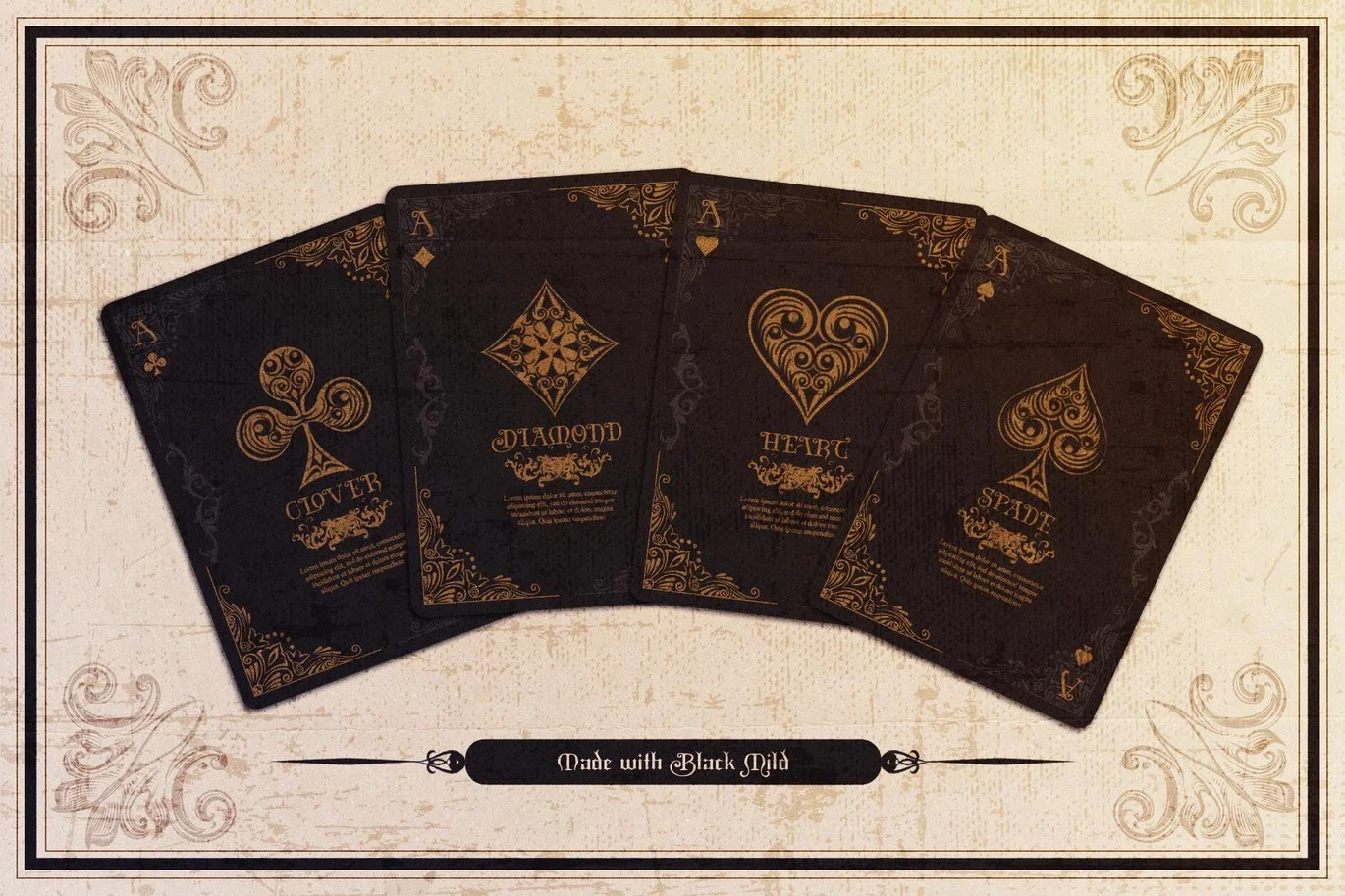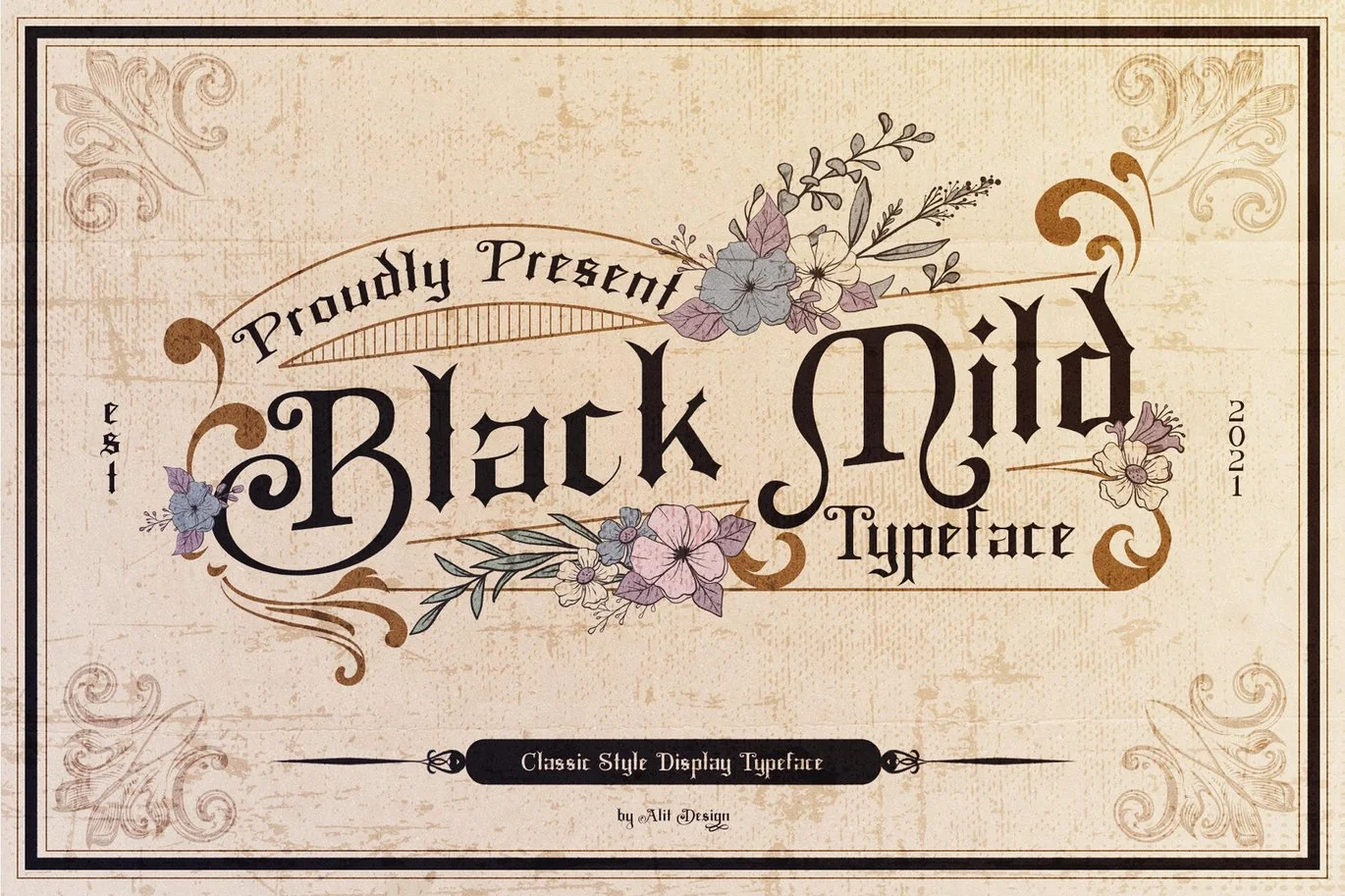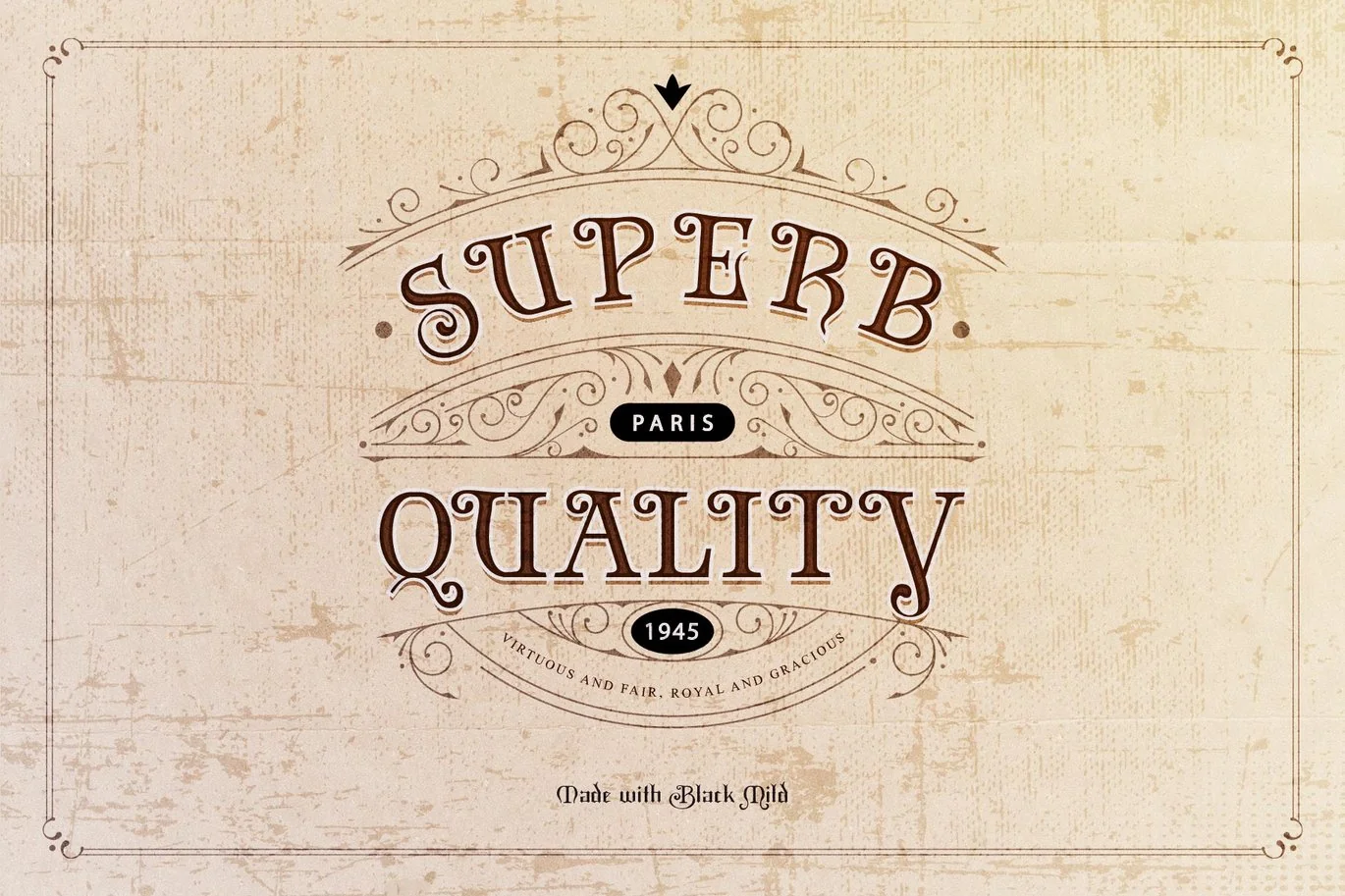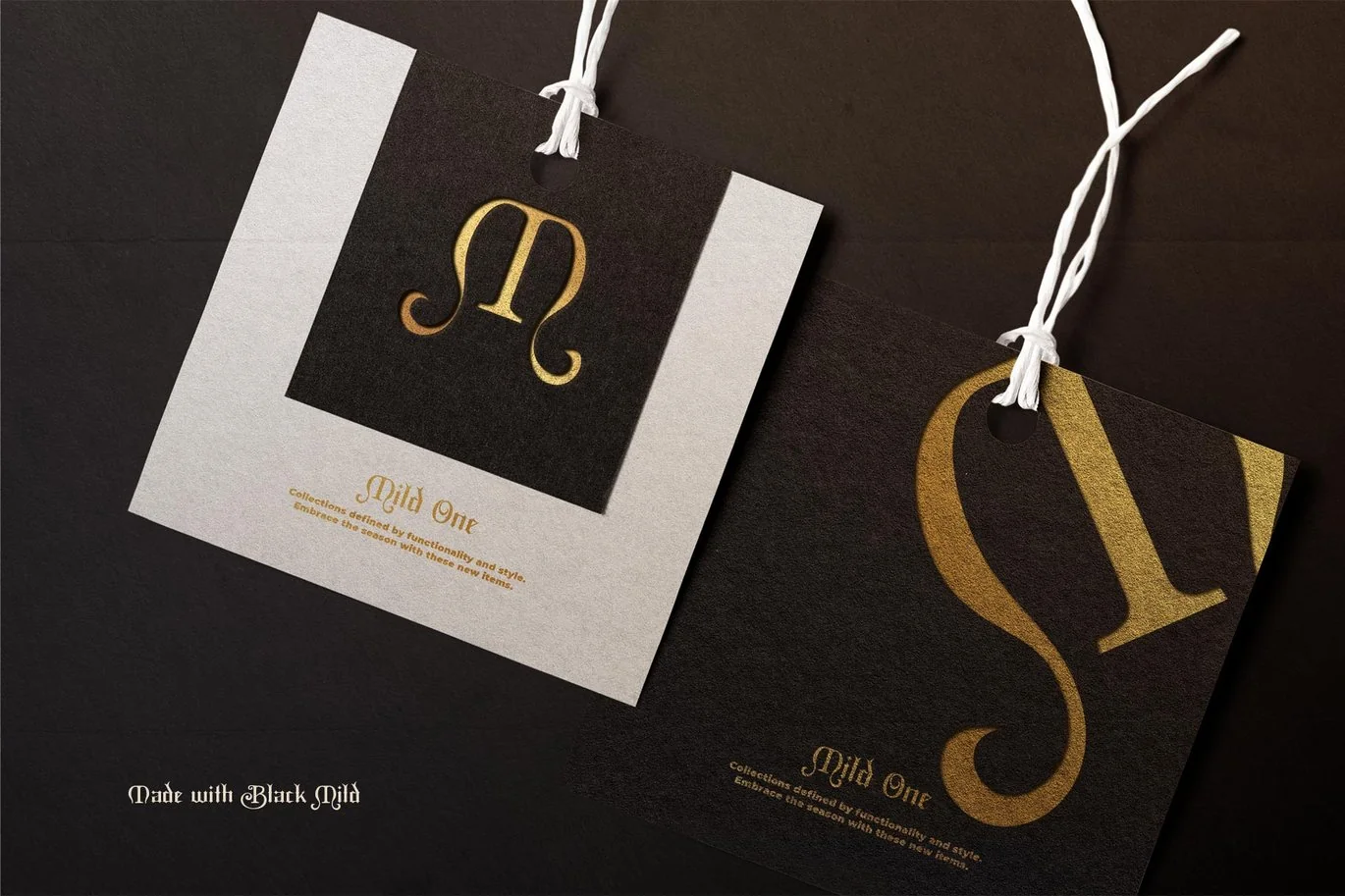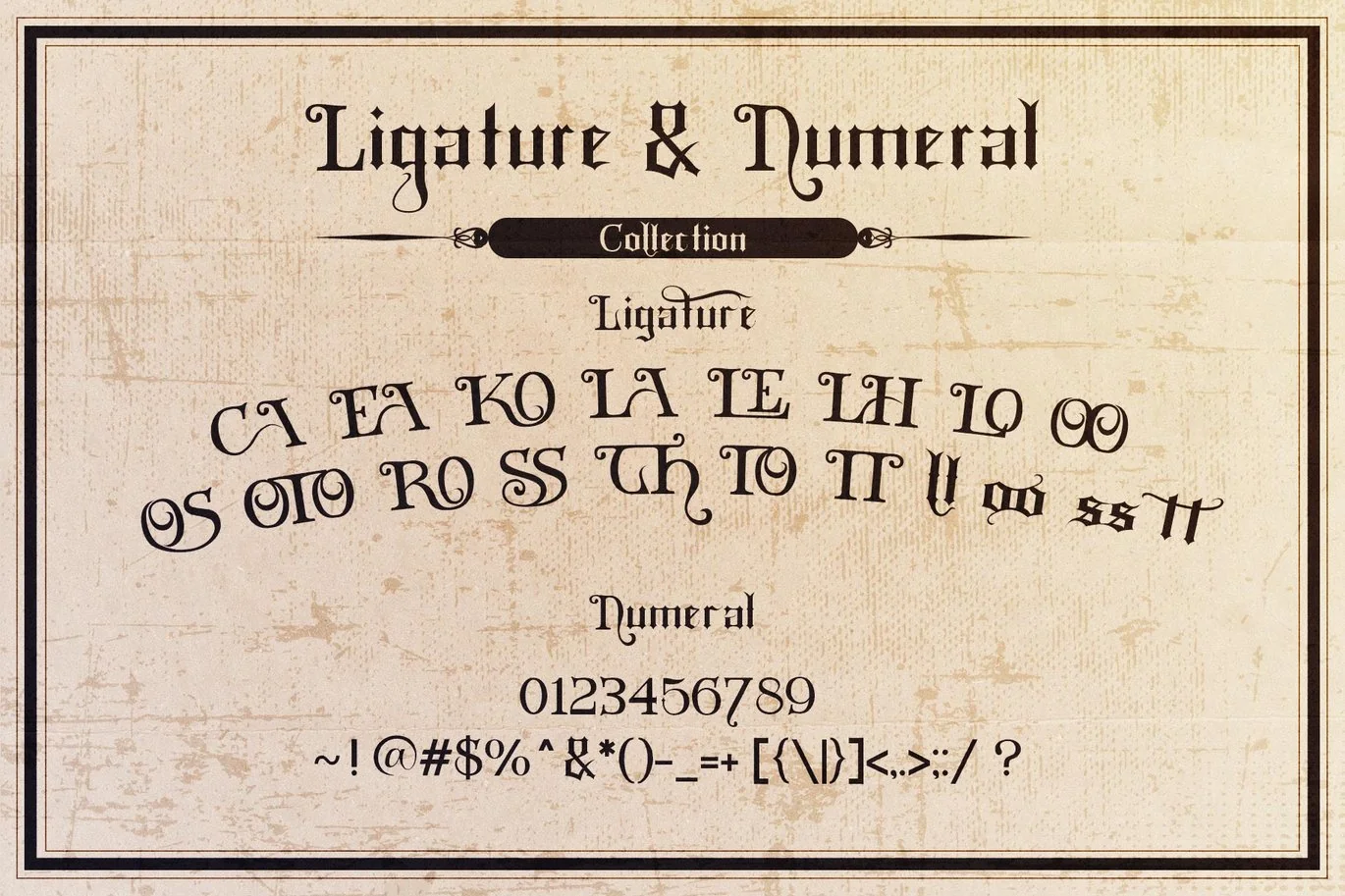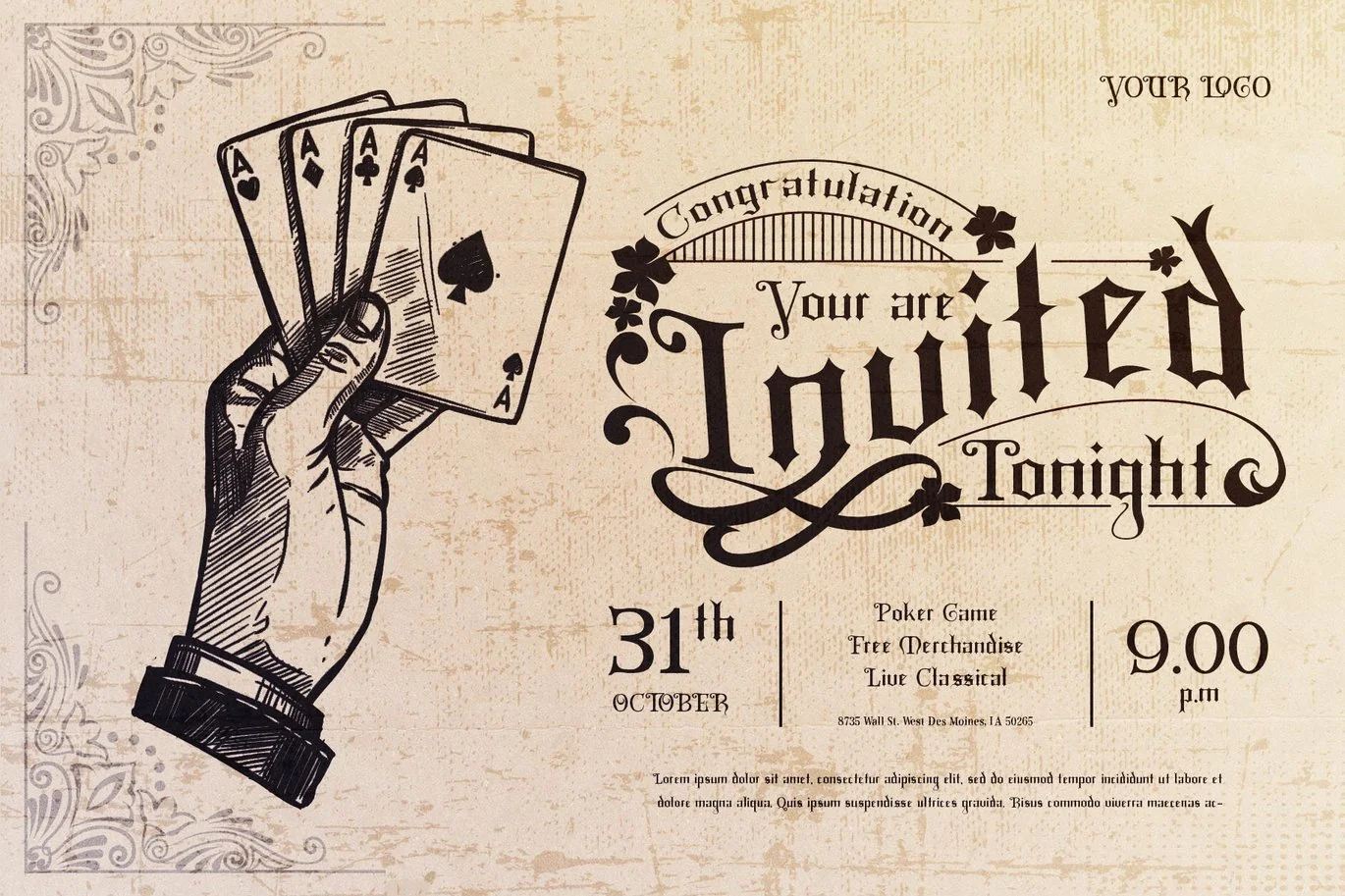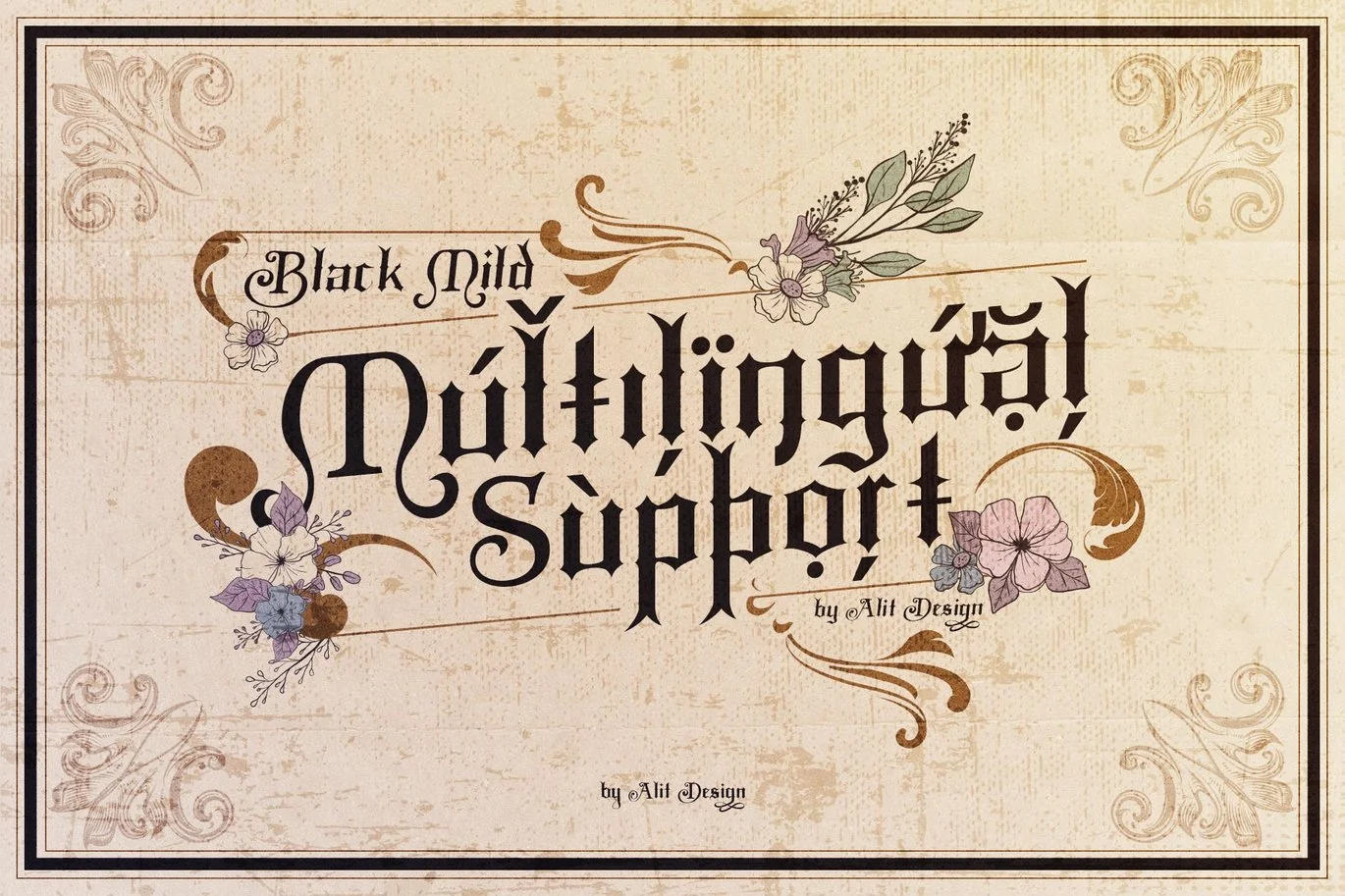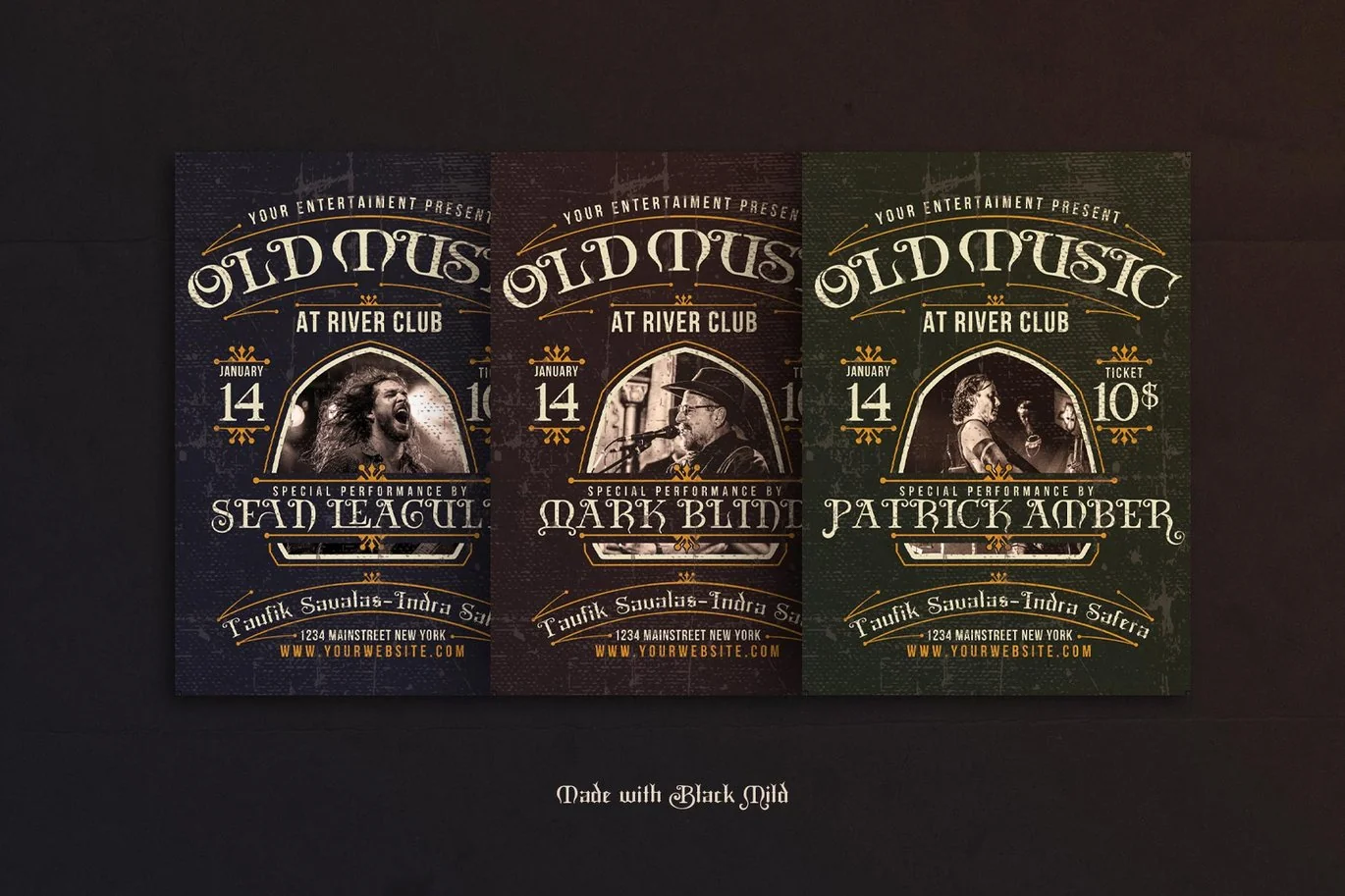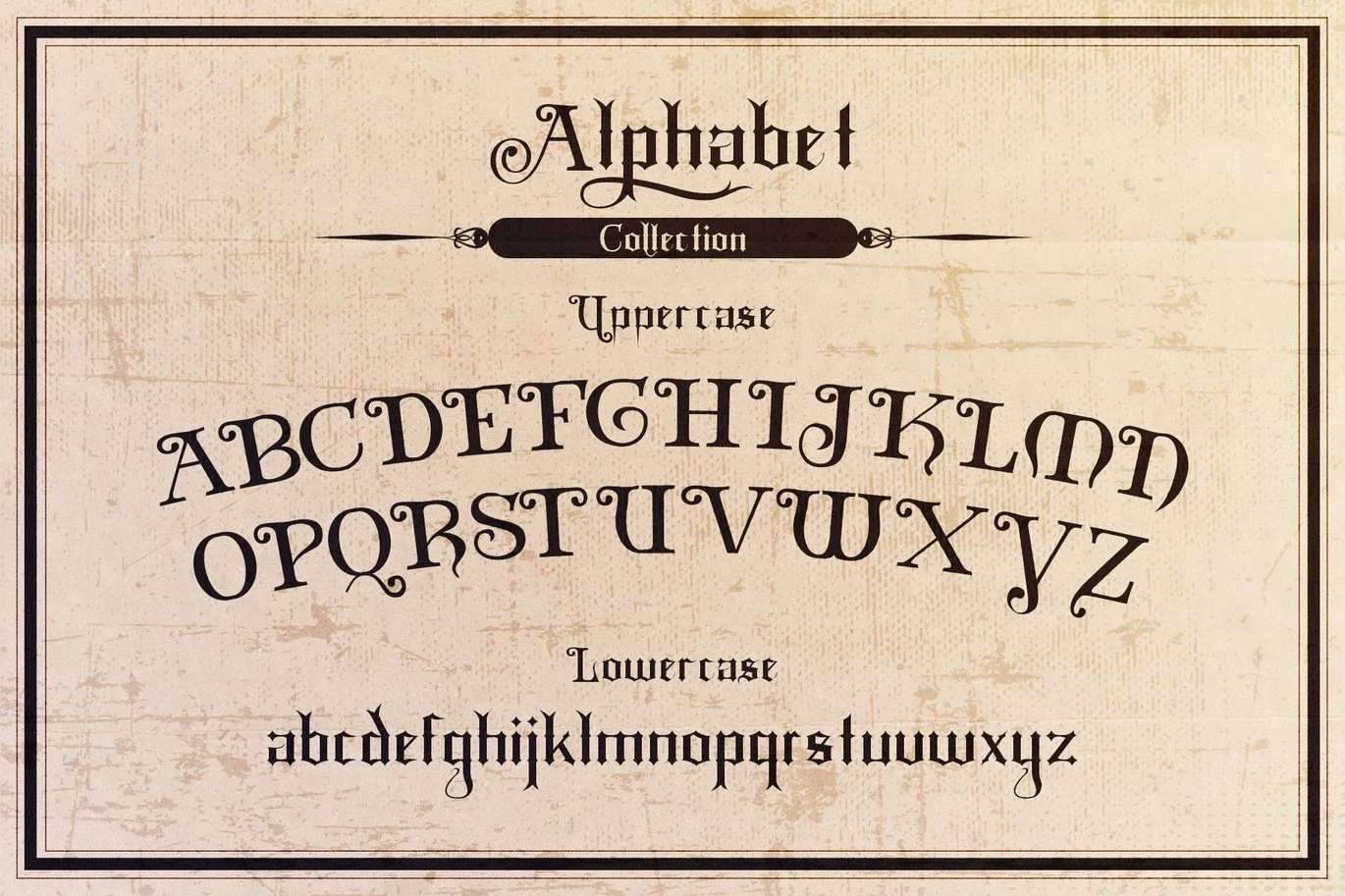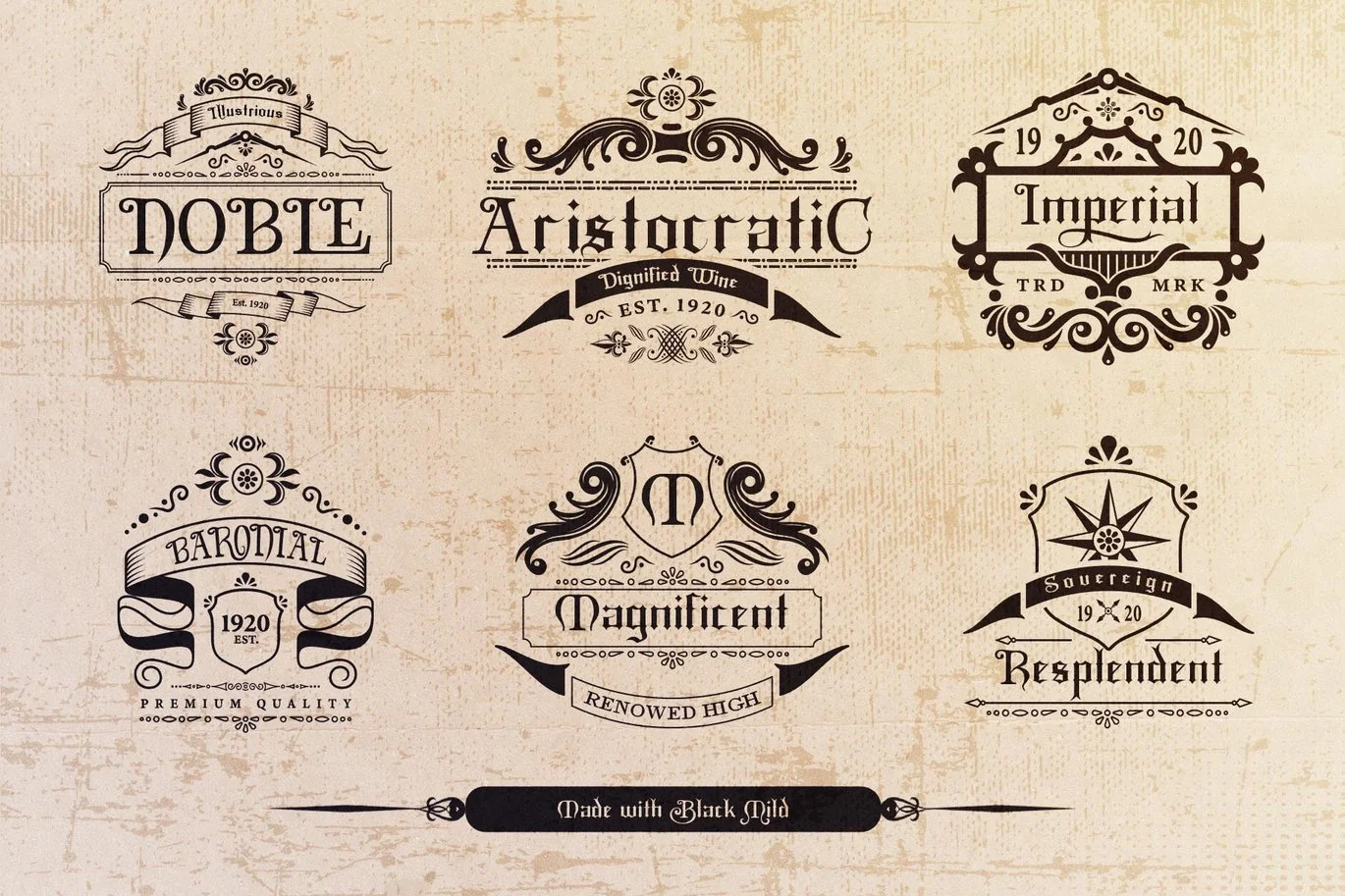
Black Mild Typeface
Introducing Black Mild Typeface A font that is inspired by the old gothic style writing which is commonly known as the Black letter style. But the Black Mild typeface is made with a simpler and more modern touch to fit into a younger and cooler design. The Black Mild typeface is very suitable for design themed with gothic, vintage, rock designs and for whiskey packaging designs.
- A-Z Character Set
- Numerals & Punctuations (OpenType Standard)
- Stylistic Alternates